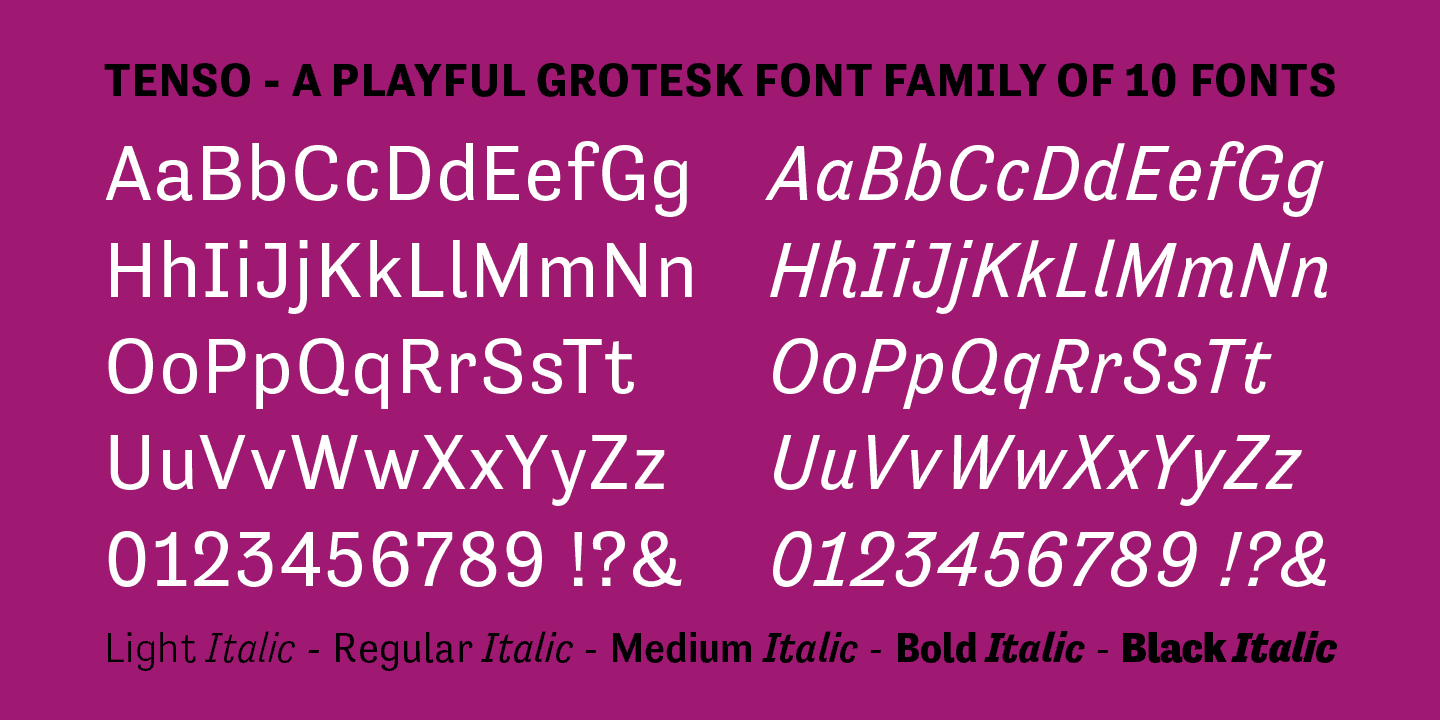
Tenso is a sans serif font family. This typeface has ten styles and was published by exljbris Font Foundry.
Tenso is an economic running sans serif with a lot of character. It carries some hints of grotesque such a one-story lowercase g and closed, angled strokes on C, G and S. On the other hand it has a higher than normal stroke contrast and also a real italic (not only sloped). This balanced mix makes it a playful grotesk sans suitable for all kinds of publications, apps, and websites.